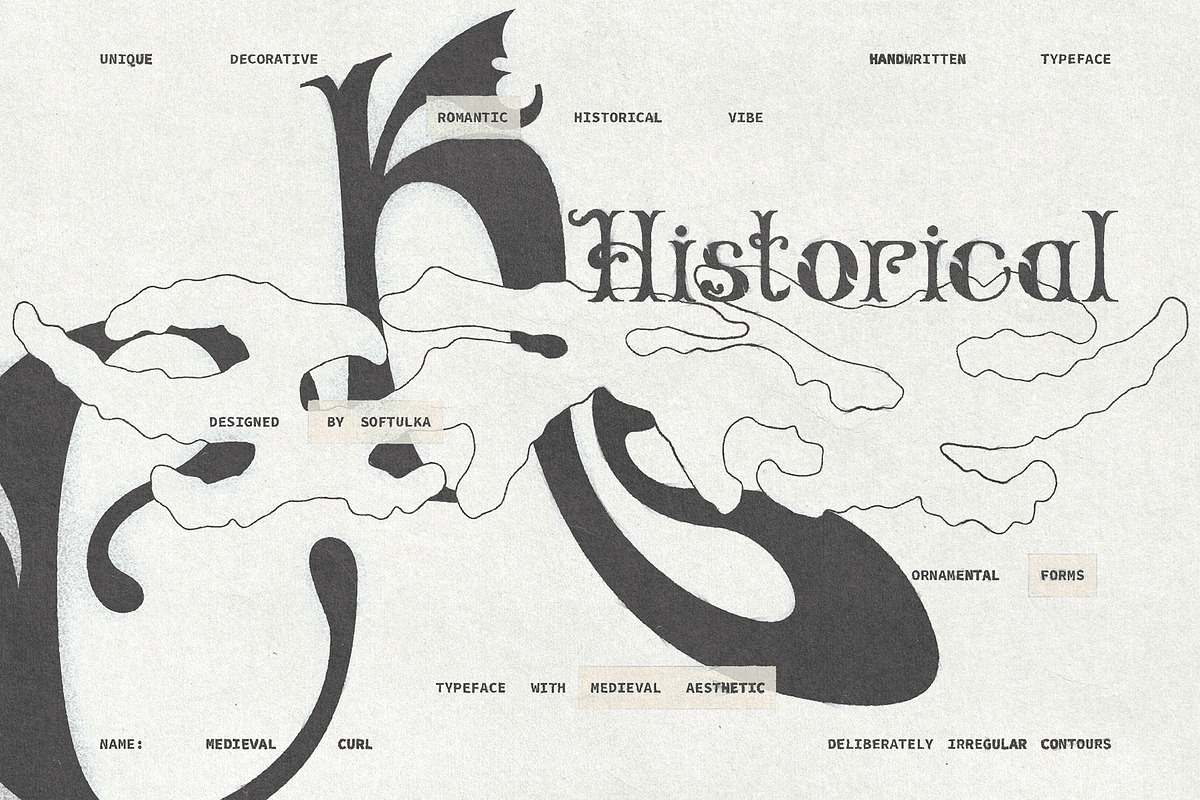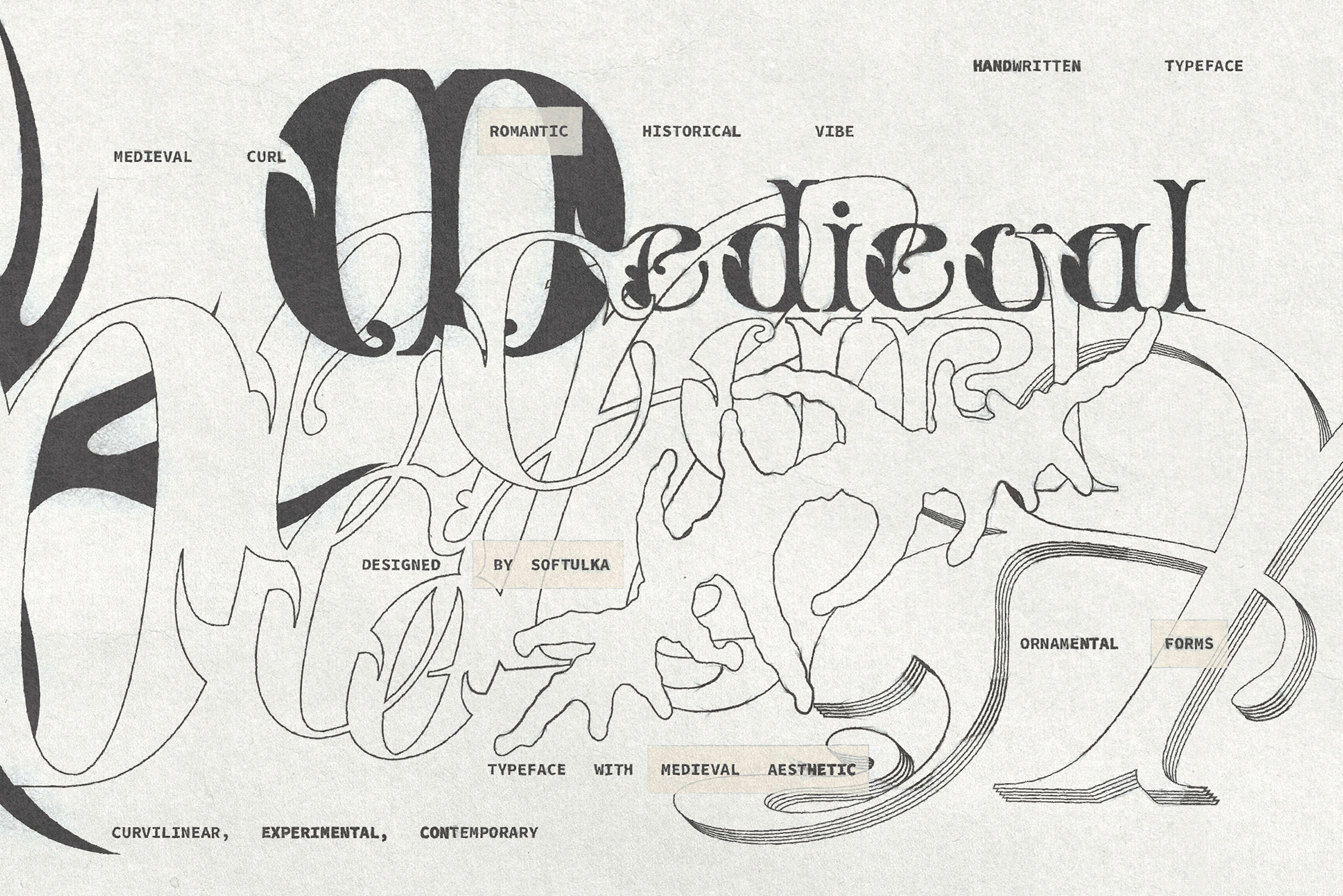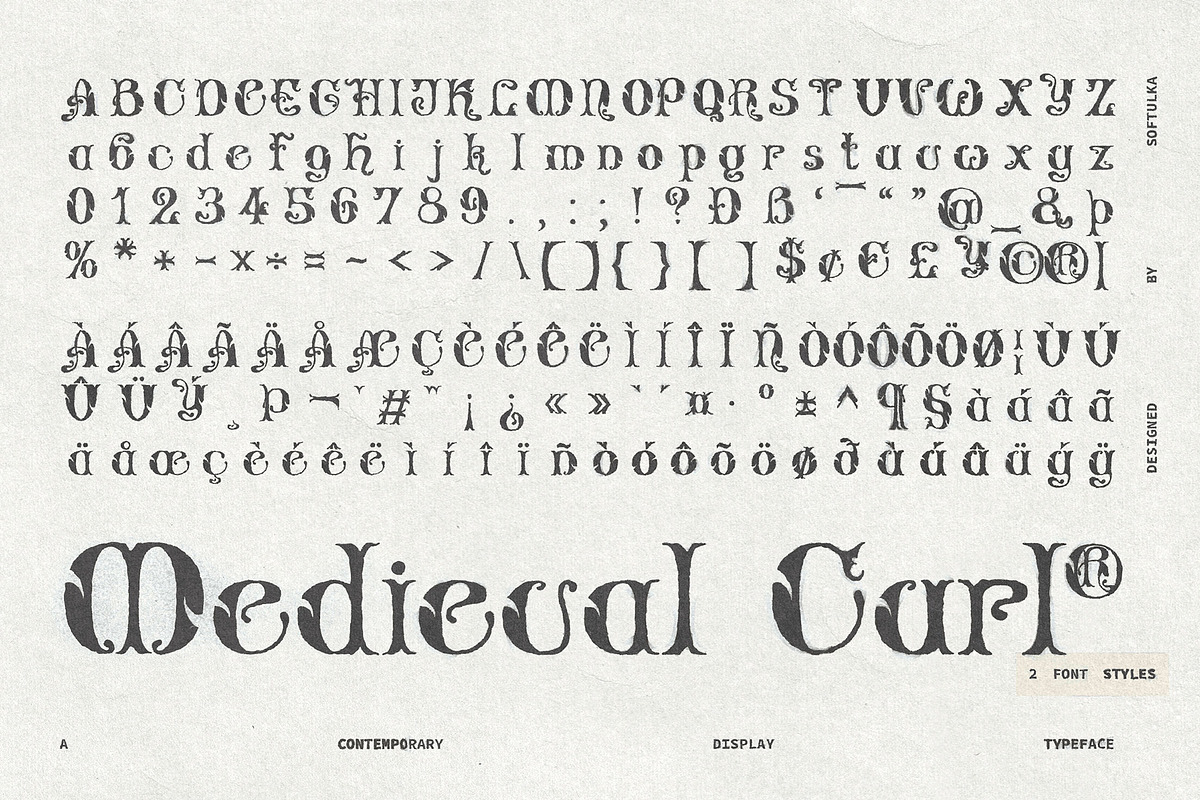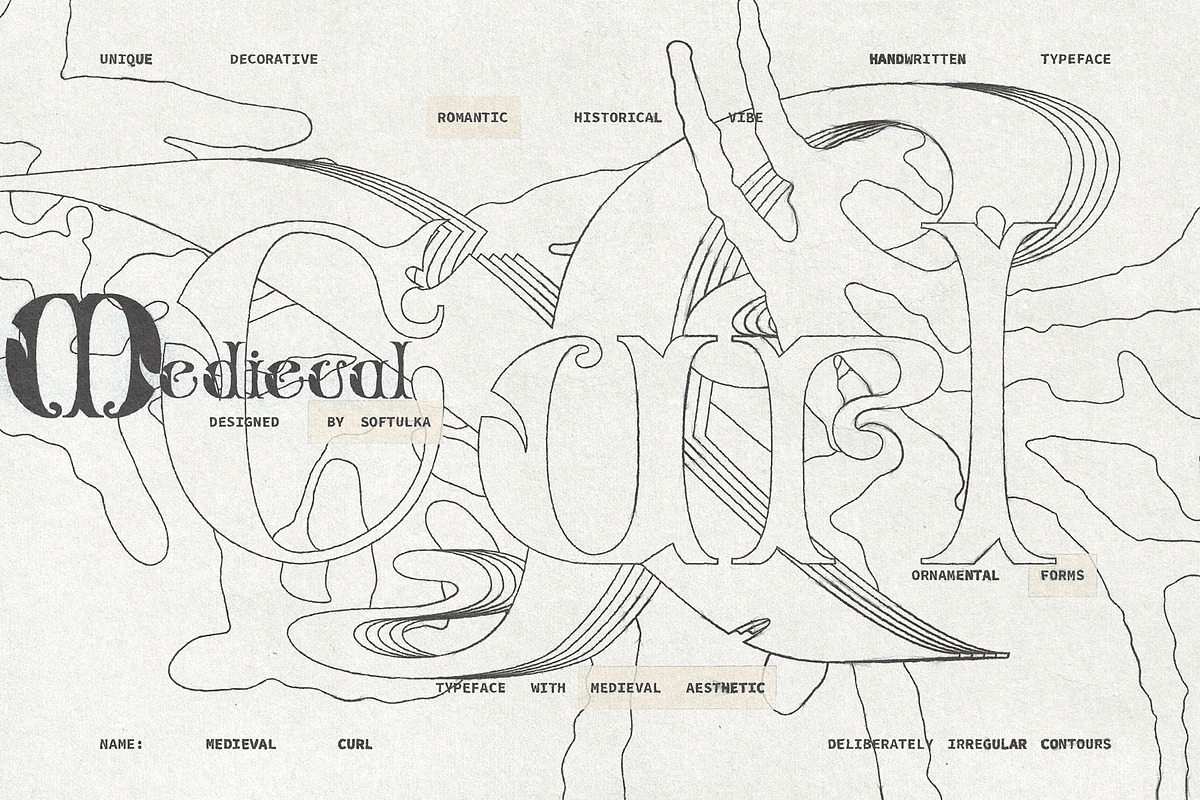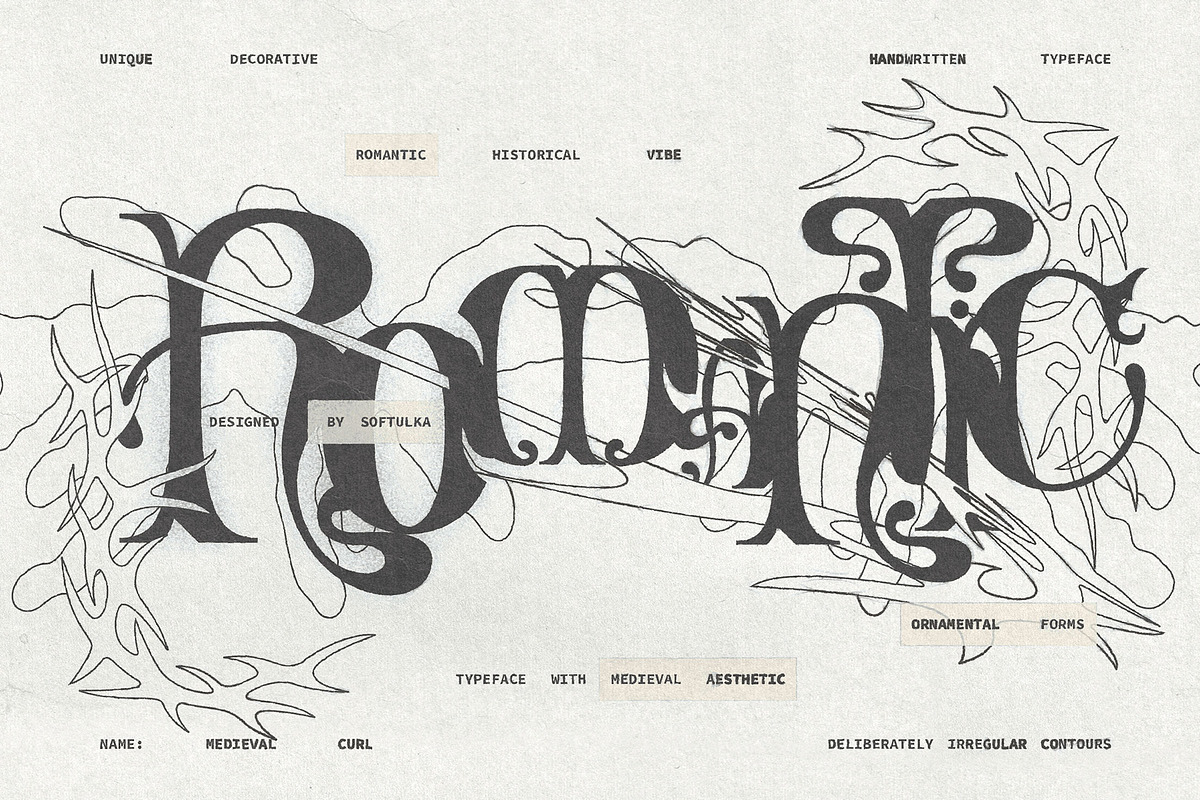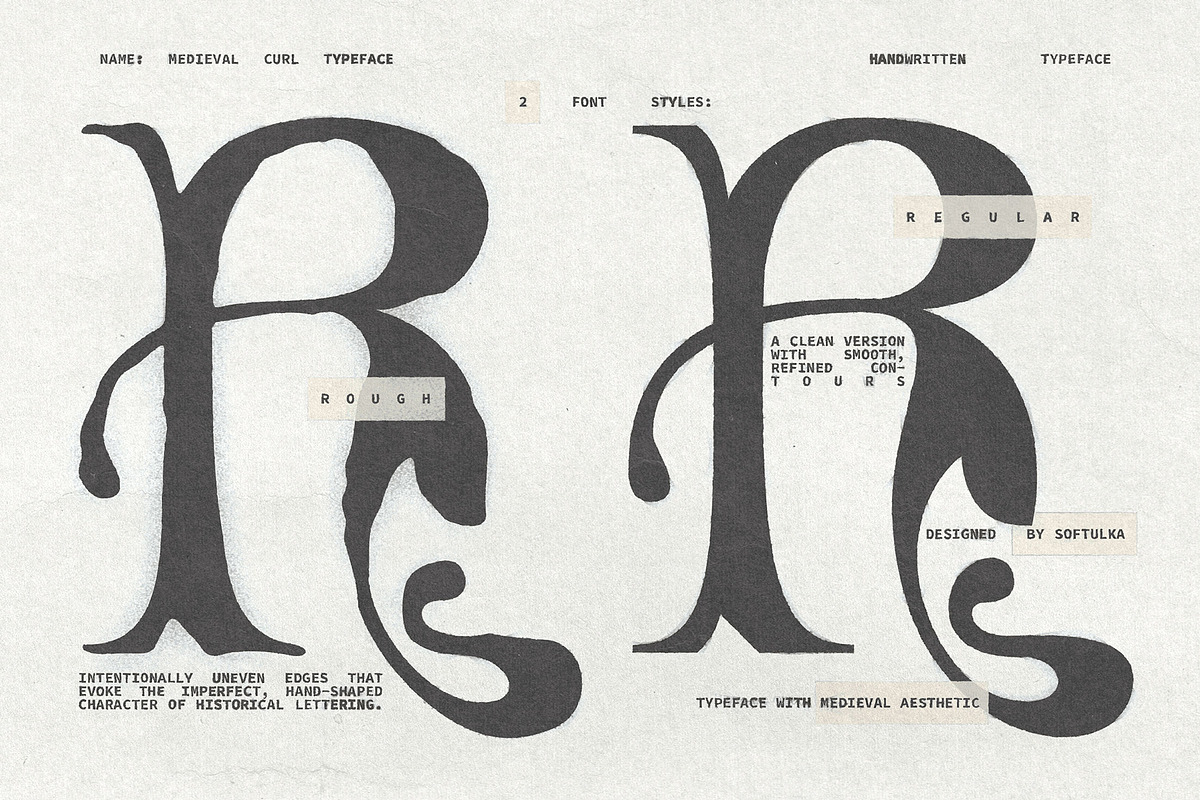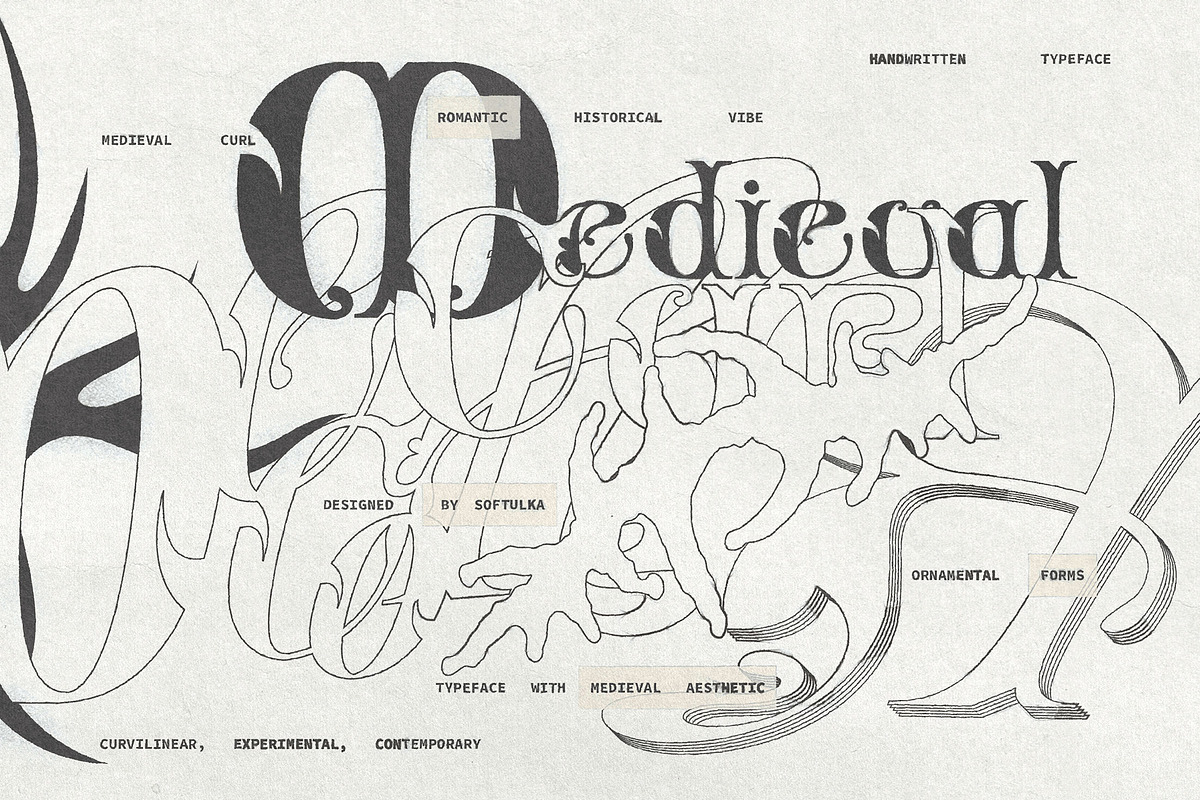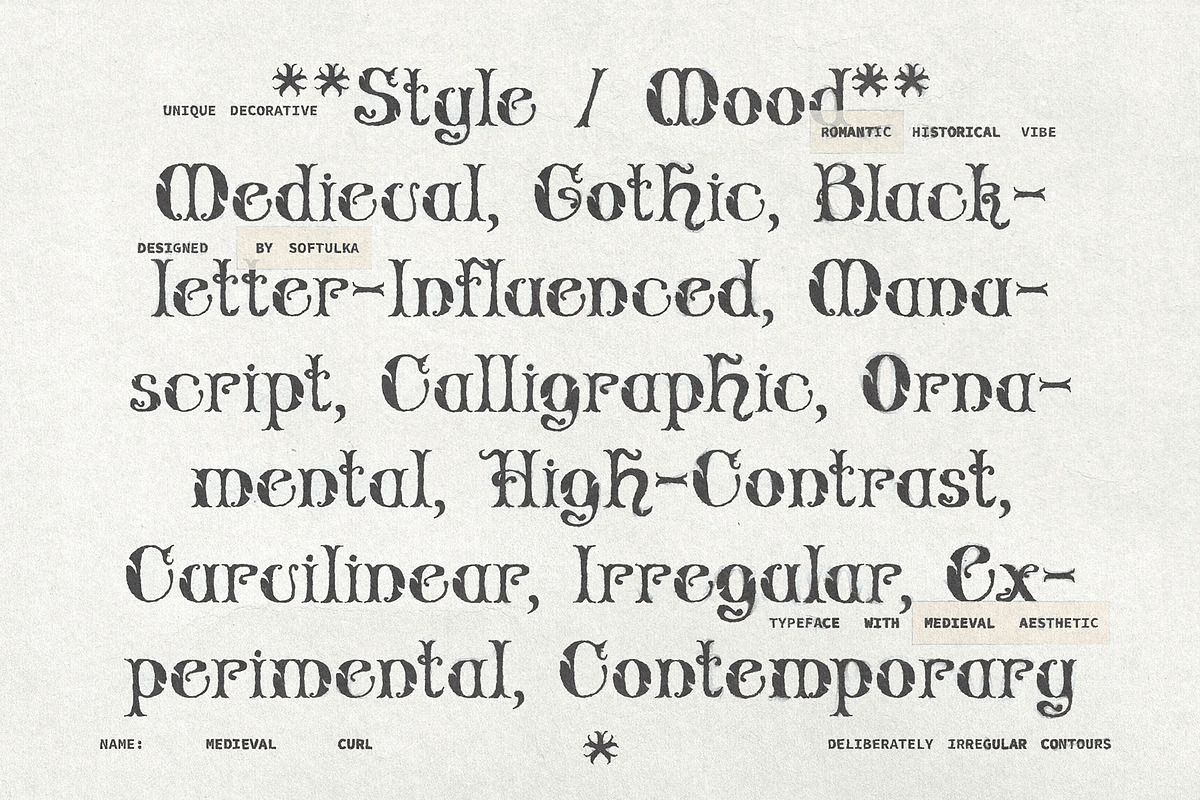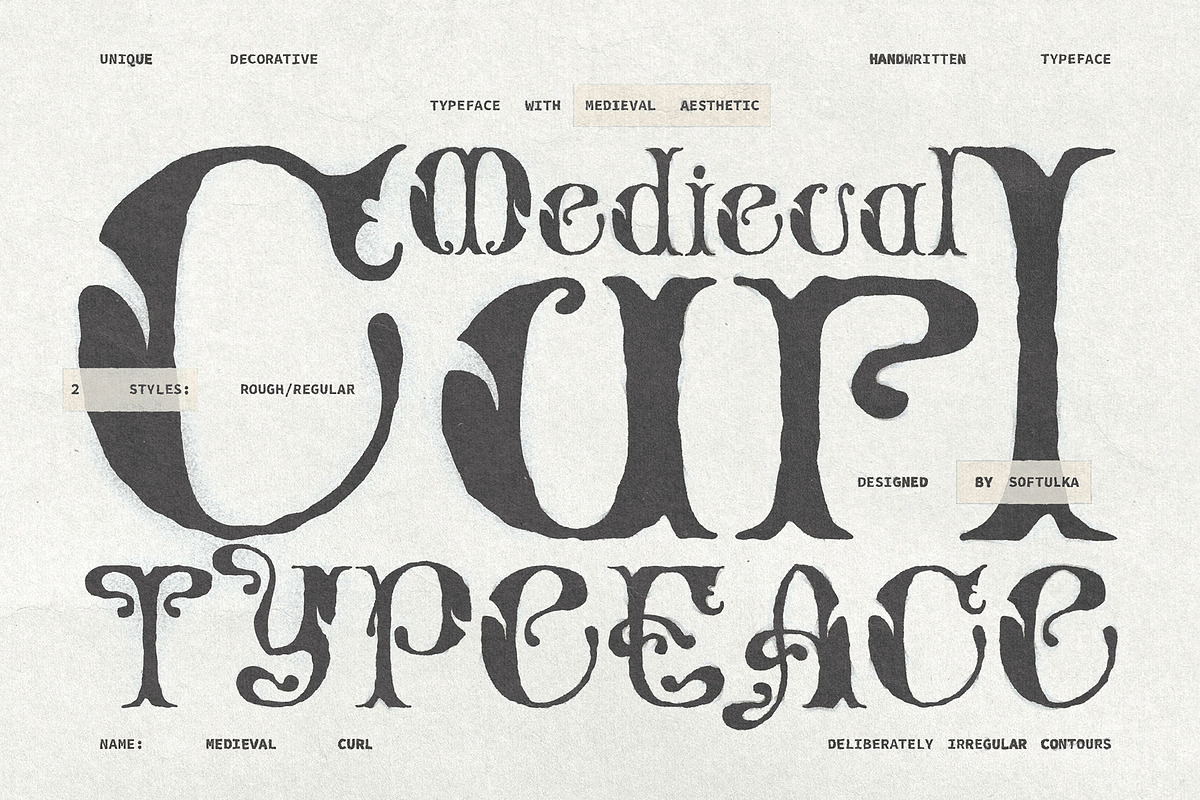
Medieval Curl Typeface
Style / Mood
Medieval, Gothic, Blackletter-Influenced, Manuscript, Calligraphic, Ornamental, High-Contrast, Curvilinear, Irregular, Experimental, Contemporary
Medieval Curl is a decorative display typeface inspired by medieval manuscripts and gothic lettering. High-contrast structures, inward curls, elongated hooks and looping terminals create an ornamental, expressive rhythm throughout the alphabet.
The typeface comes in two styles: a clean version with smooth, refined contours, and a rough version with intentionally uneven edges that evoke the imperfect, hand-shaped character of historical lettering. Both styles share the same distinctive construction while offering different levels of texture and expression.